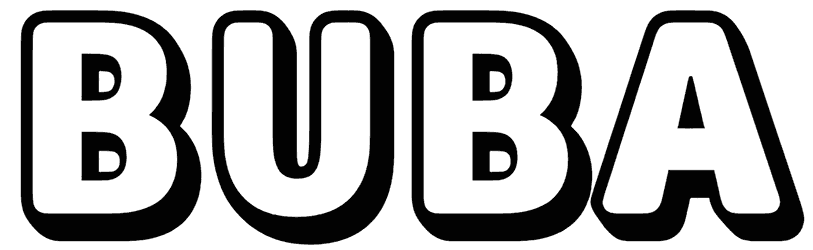
Buba Font
Buba is a fancy cartoon font that comes with hollow characters and a 3D style, thus leading to a sense of modernity, friendliness, jauntiness, and innovation. The good news about this font is that it offers two distinctive versions and widens your selection range in the middle of creating graphic content, including animation posters, logos, gift cards, business cards, and stationery.
Buba is a sans serif with rounded terminals. Buba comprises 6 fonts (Outline, OutlineEroded, Shadow, ShadowEroded, Stripes and StripesEroded) that can be combined in layers. It is great for display use.
Designed by Genilson Lima Santos